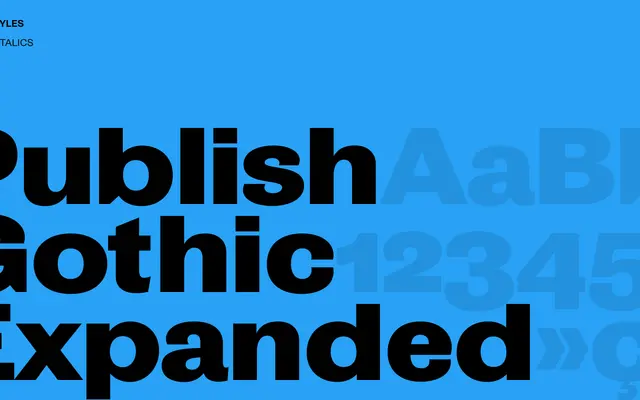
Publish Gothic Expanded
Publish Gothic Expanded specimen from Playtype
An expanded-width grotesque from Playtype, built for display settings where width and presence are required.
Publish Gothic Expanded sits in the Gothic grotesque tradition, offering a wider-than-standard cut suited to headlines, editorial layouts and identities that need a strong horizontal presence. The page offers limited detail on weights or italics, but the expanded proportion gives it a distinct character within the grotesque genre. It fits naturally alongside editorial and branding work that calls for a grounded, utilitarian sans with some spatial generosity.
The name references Gothic grotesque conventions and an expanded width variant, placing it firmly in the grotesque sans-serif tradition with a wider-than-standard cut.